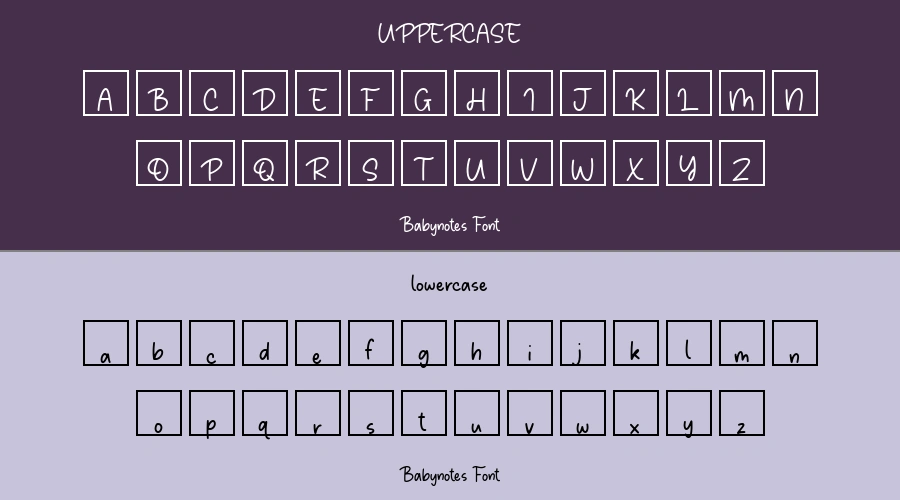
About Babynotes Font
Babynotes Font represents a sophisticated approach to type design, balancing architectural precision with reading comfort. Perfect for product packaging, this font family showcases impressive personality and historical accuracy throughout its character set. Designers appreciate its versatility and reliability.
Designers will appreciate nuanced touches including transitional forms and mid-word alternates, adding sophistication to any project. These features become apparent in brand logos, where reliability matters most. The careful treatment of loop structure and creative versatility ensures optimal performance.
Babynotes Font |